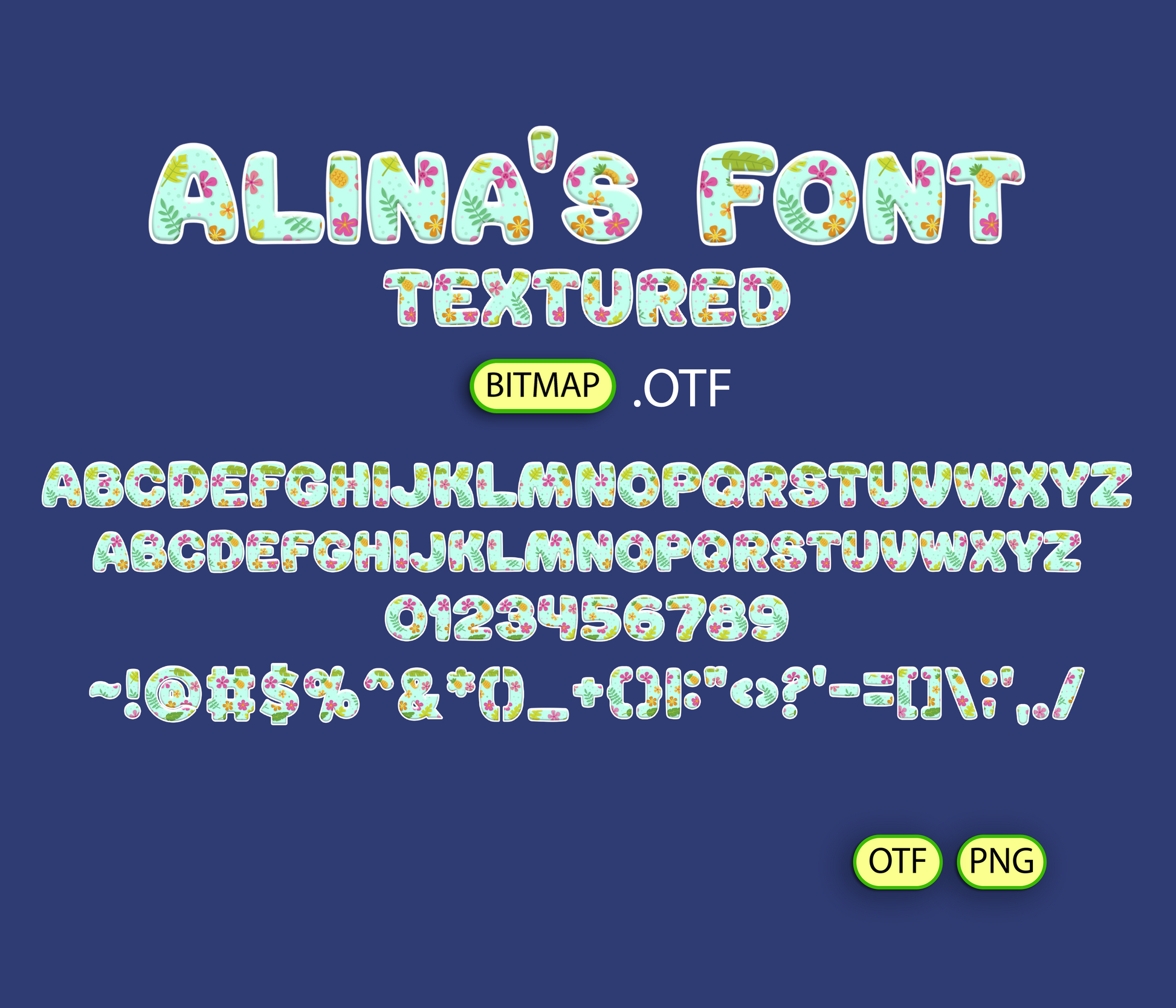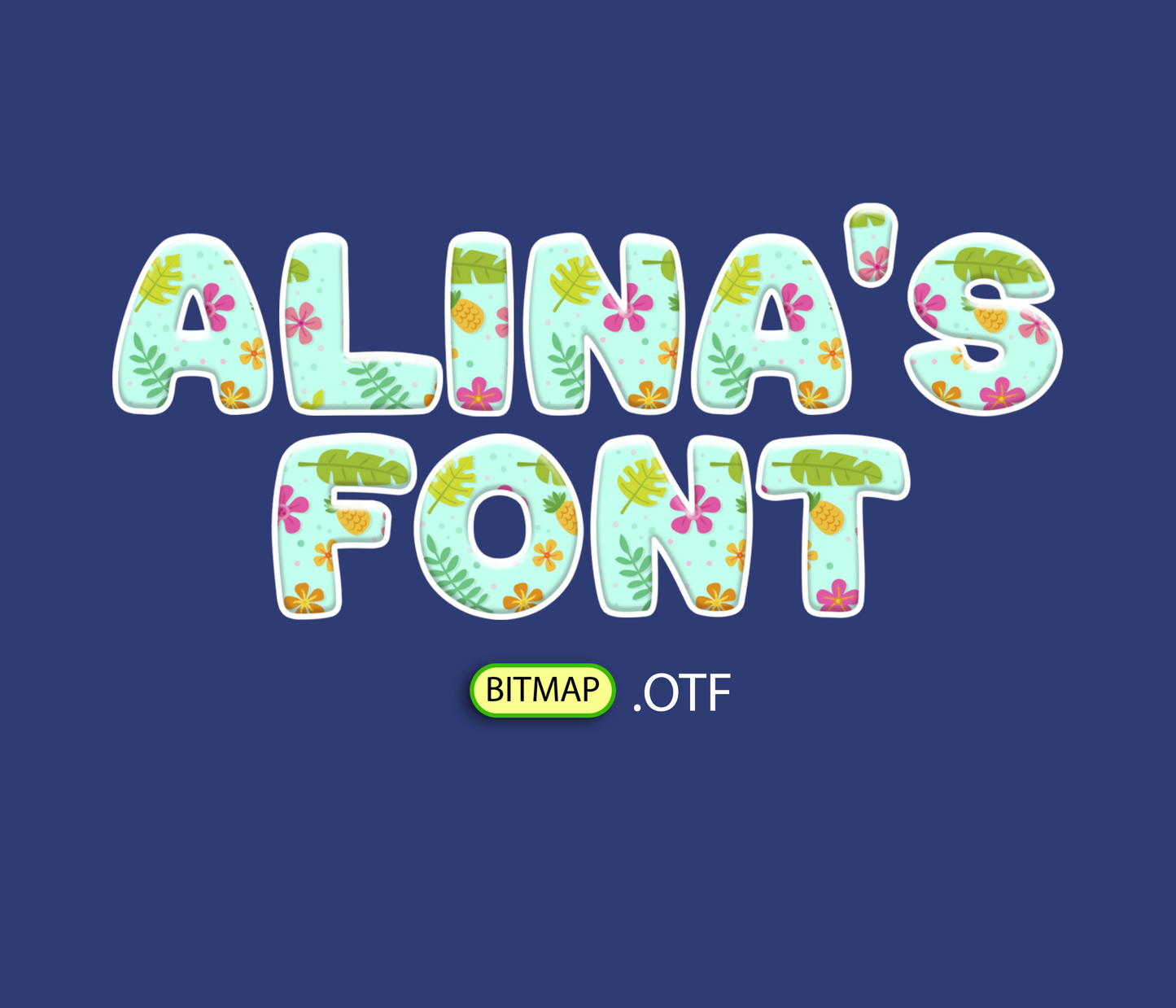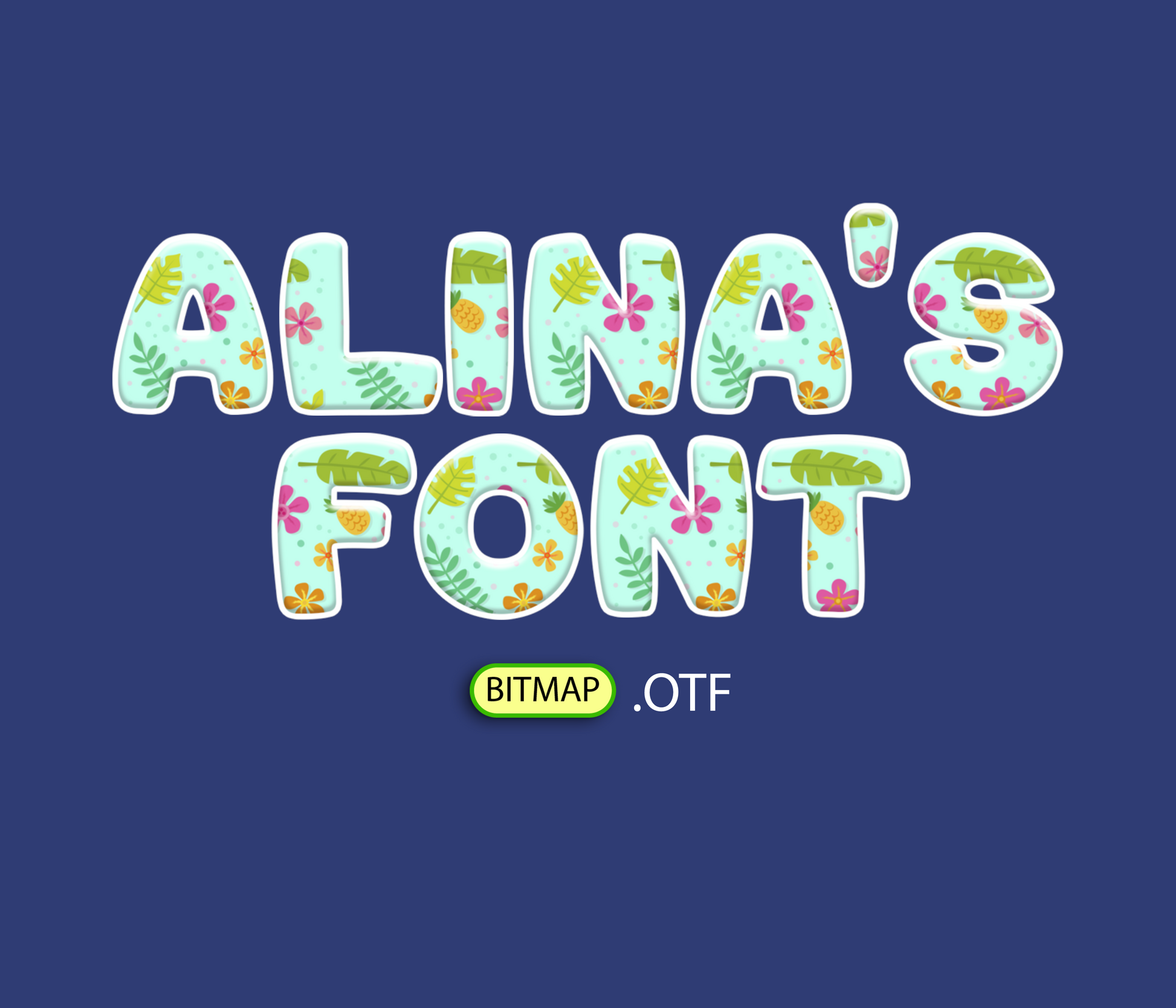
Island Rhythm Pattern Font
Island Rhythm Typeface Textured
Immerse yourself in the captivating allure of the Pacific archipelago with our Island Rhythm Typeface, reflecting the harmony of volcanic peaks and azure shores. Tailored for leisure enterprises, coastal-themed companies, celebration planners, and artistic creators, this font delivers the tranquil, adventurous essence of ocean currents and tropical sunrises to your design projects. Develop stunning visuals, seaside-inspired products, or multimedia content with the peaceful, exotic spirit of plumeria gardens and bamboo forests.
Our Island Rhythm Typeface presents fluid, tide-inspired contours and lively characters that embody the relaxed yet dynamic nature of archipelago living. Exceptional for:
- Leisure Commerce: Generate compelling brand identity, signage, and advertising materials for oceanfront lodges, beach clubs, and coastal eateries
- Celebration Design: Outstanding for tropical gatherings, destination ceremony invitations, and festive materials that evoke the romance of island ceremonies
- Online Presence: Transform digital spaces, email campaigns, and social media with radiant lettering that conveys adventure and serenity
- Destination Promotion: Incorporate authentic coastal flair into lifestyle publications, escape guides, and marketing assets for remote getaways
- Artistic Ventures: Introduce oceanic beauty to memory books, handcrafted items, and decorative projects influenced by seaside sanctuaries